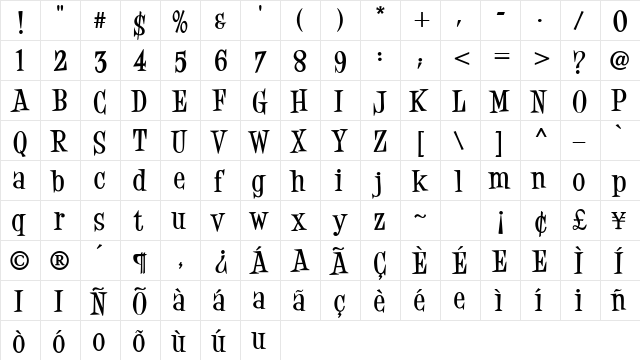
Desigers Bold Font Preview
Desigers Bold
Desigers Bold Font Details
Design Context for Desigers Typeface
Desigers is a composed and adaptable typeface that performs quietly and consistently across a wide range of design contexts. Its bold stroke weight gives it real presence on the page.